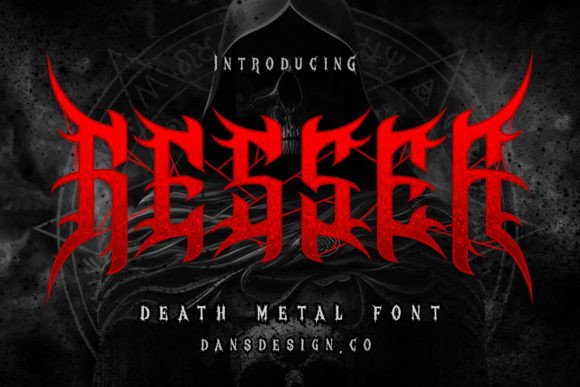
Introducing Resser Font: A Hair-Raising Handwriting Font for Tattoos & More
Unleash the dark elegance of the Resser Font, a unique blackletter font inspired by the bold strokes of handwriting. A masterpiece crafted by Dansdesign, Resser Font embodies a captivating blend of strength and sophistication, making it an extraordinary choice for those seeking to add a touch of intrigue and mystery to their creative projects.
With its intricate details and sharp edges, the Resser Font exudes the essence of handcrafted artistry. Let your imagination run wild as you explore the possibilities of this gripping font, ideal for evoking a sense of gothic allure, vintage flair, or a touch of the macabre.
Step into a world of boundless creativity with the Resser Font. Its versatility extends far beyond tattoos, inviting you to adorn posters, retro-urban designs, branding projects, logos, and vintage designs with an unmatched aura of originality.
Dare to be bold and let your designs take on a life of their own with the Resser Font. Whether you're a seasoned designer or just starting, this captivating font is guaranteed to leave a lasting impression, turning your concepts into stunning works of art.